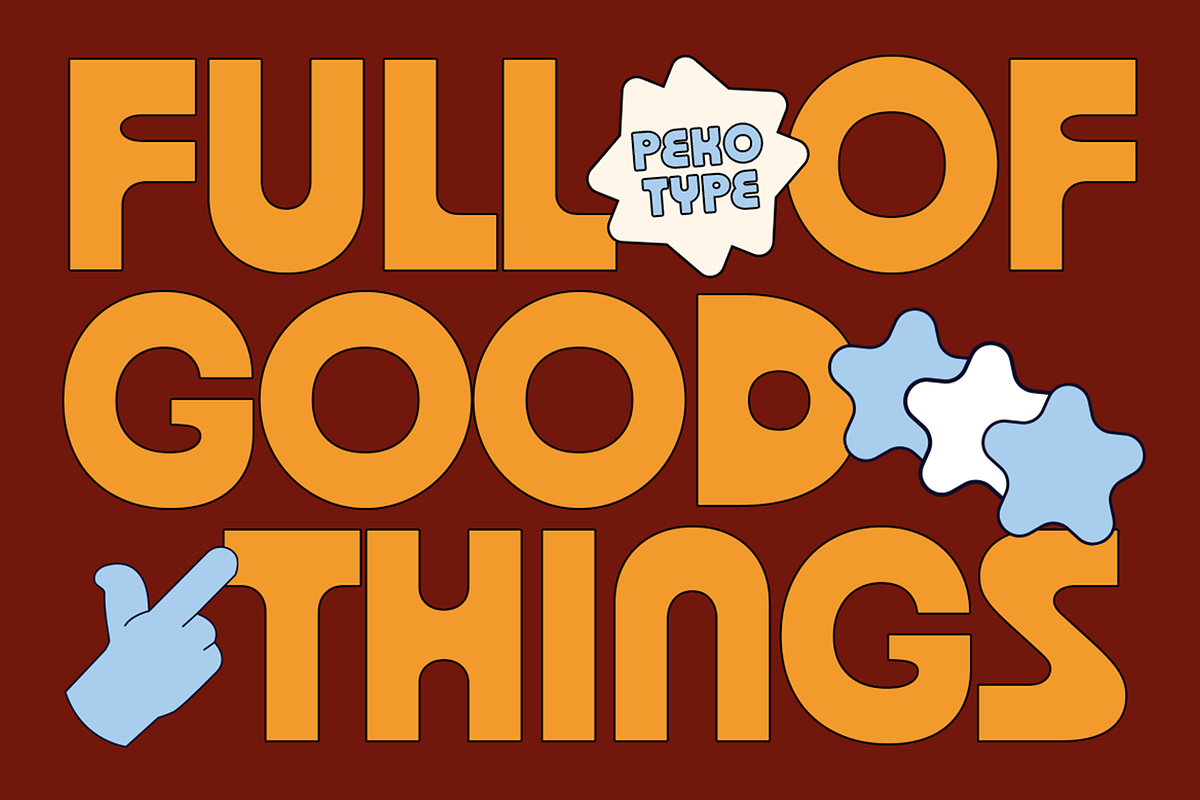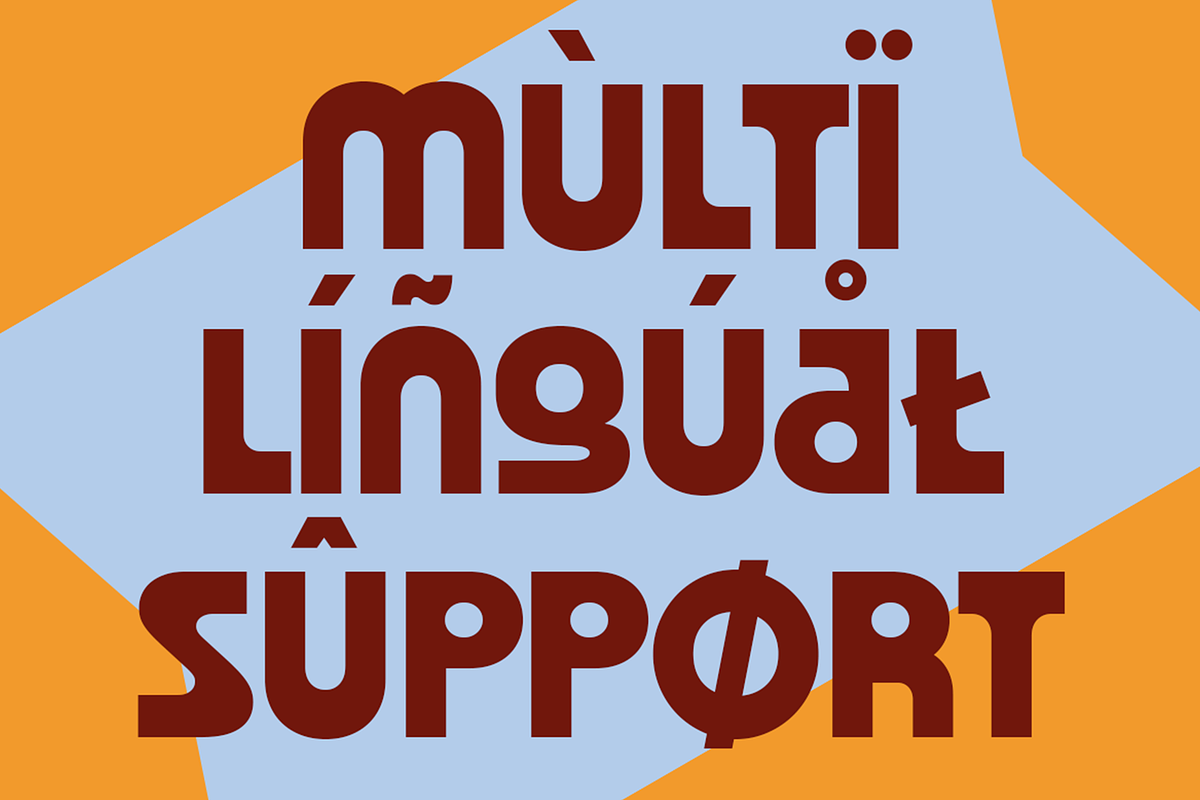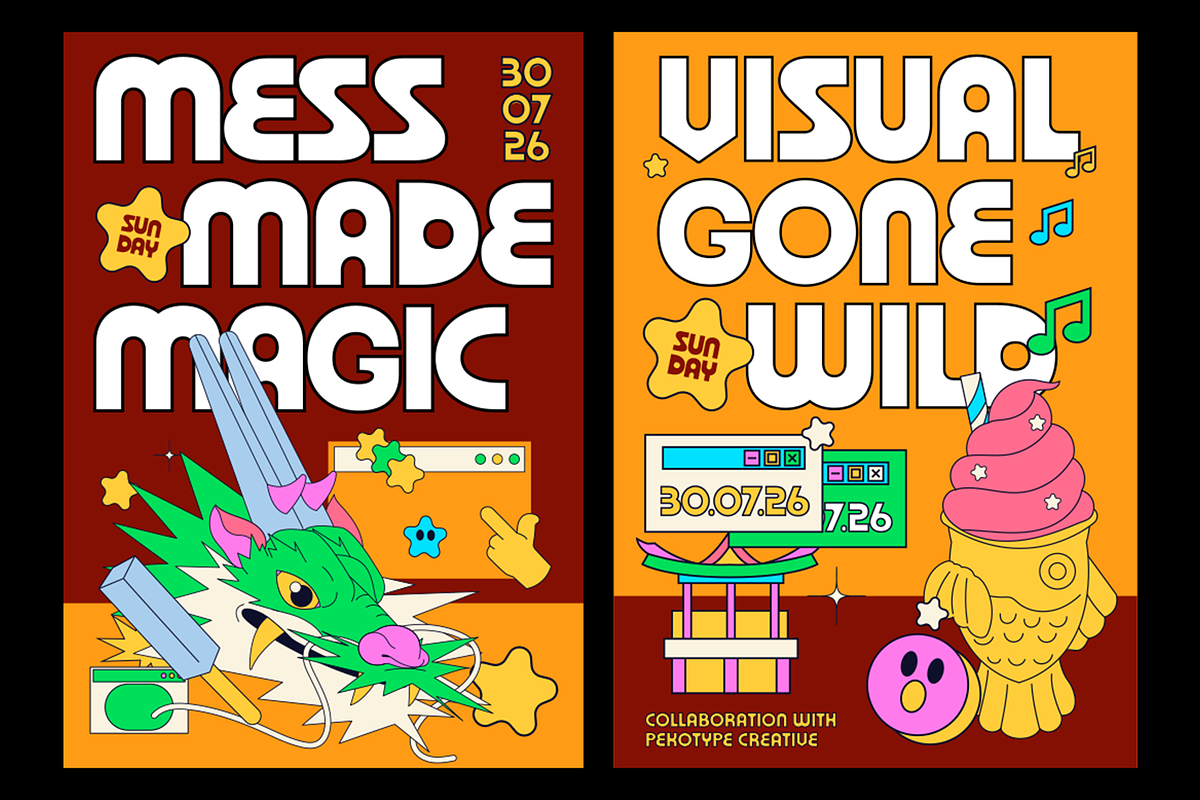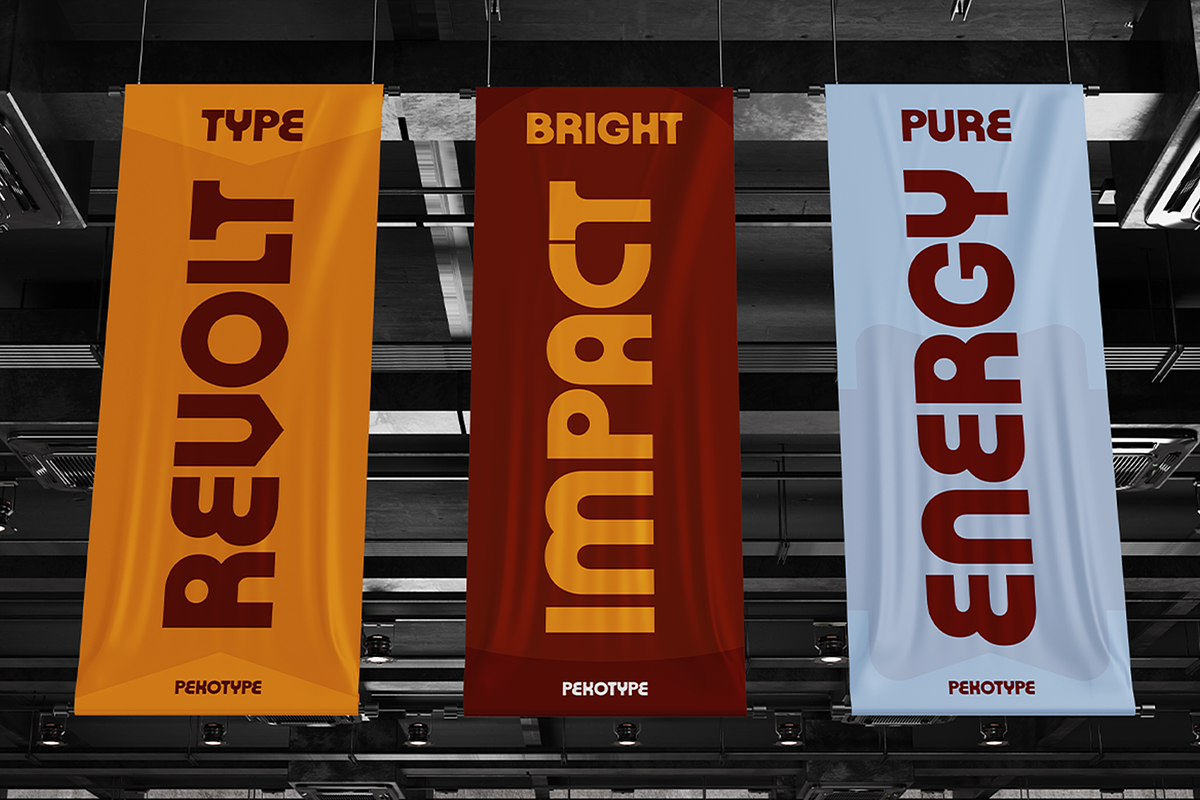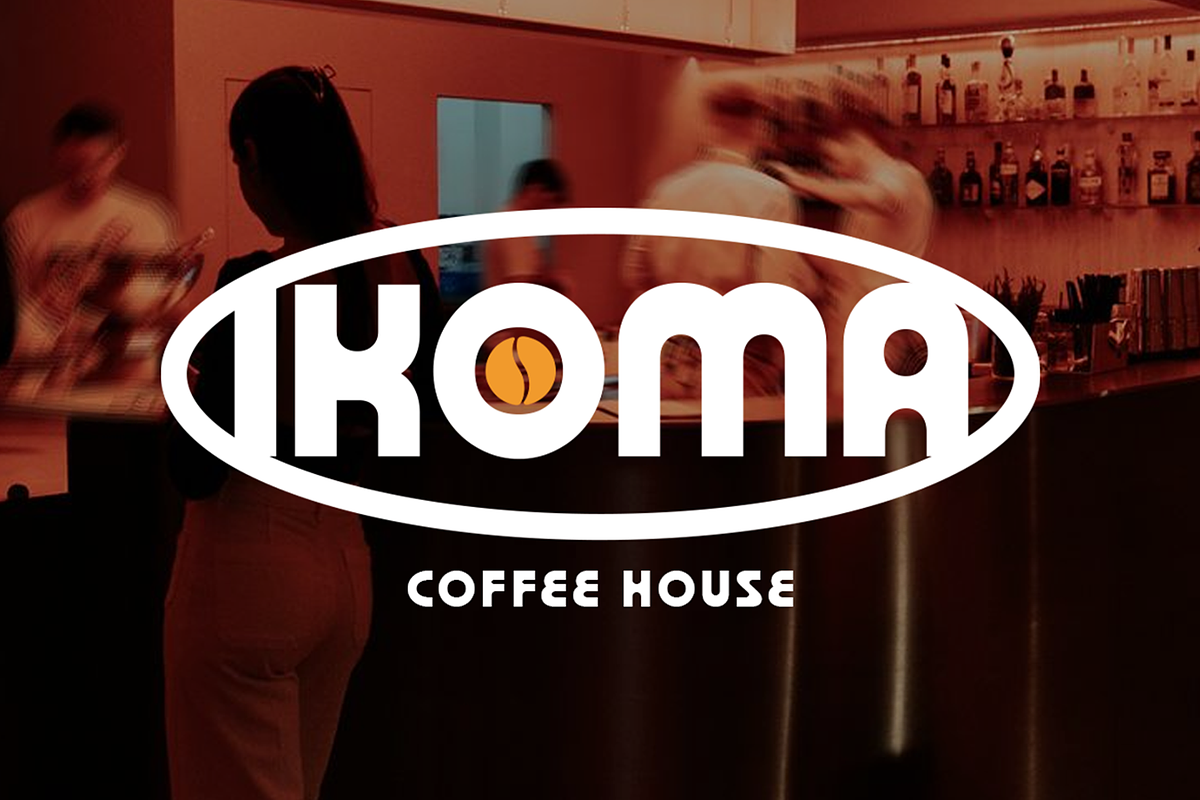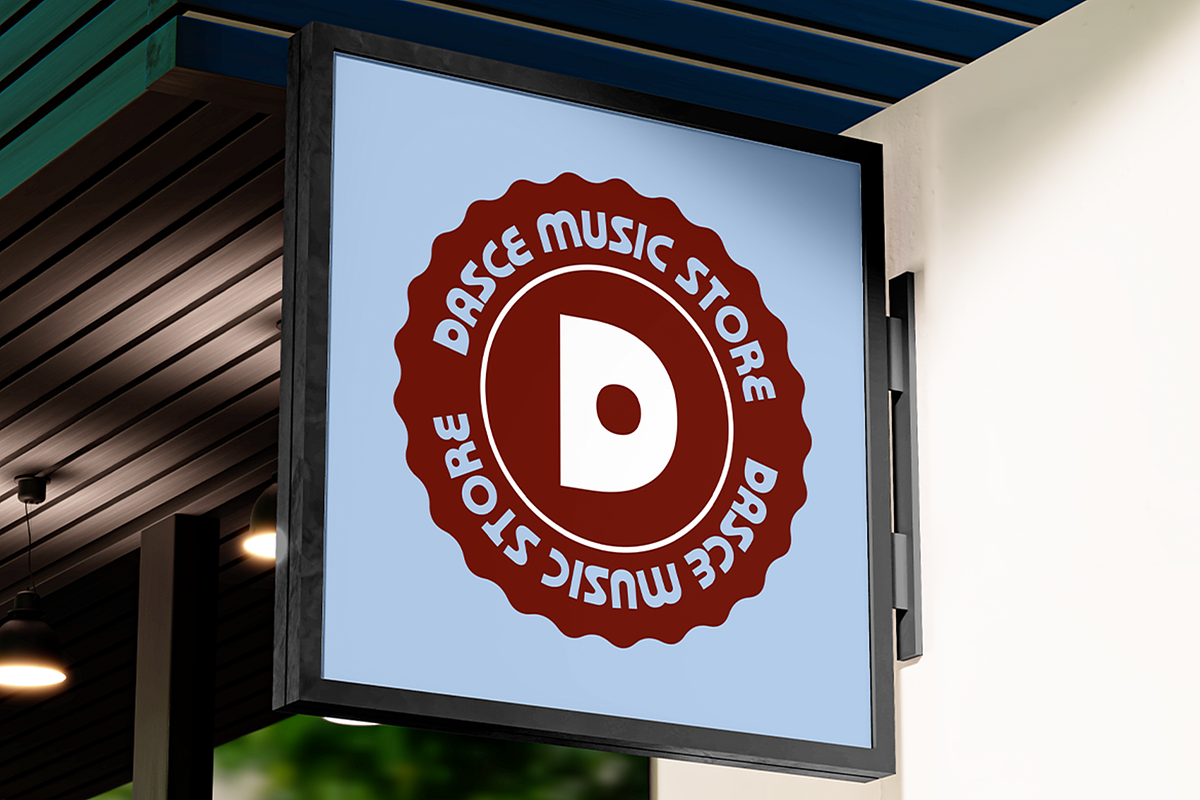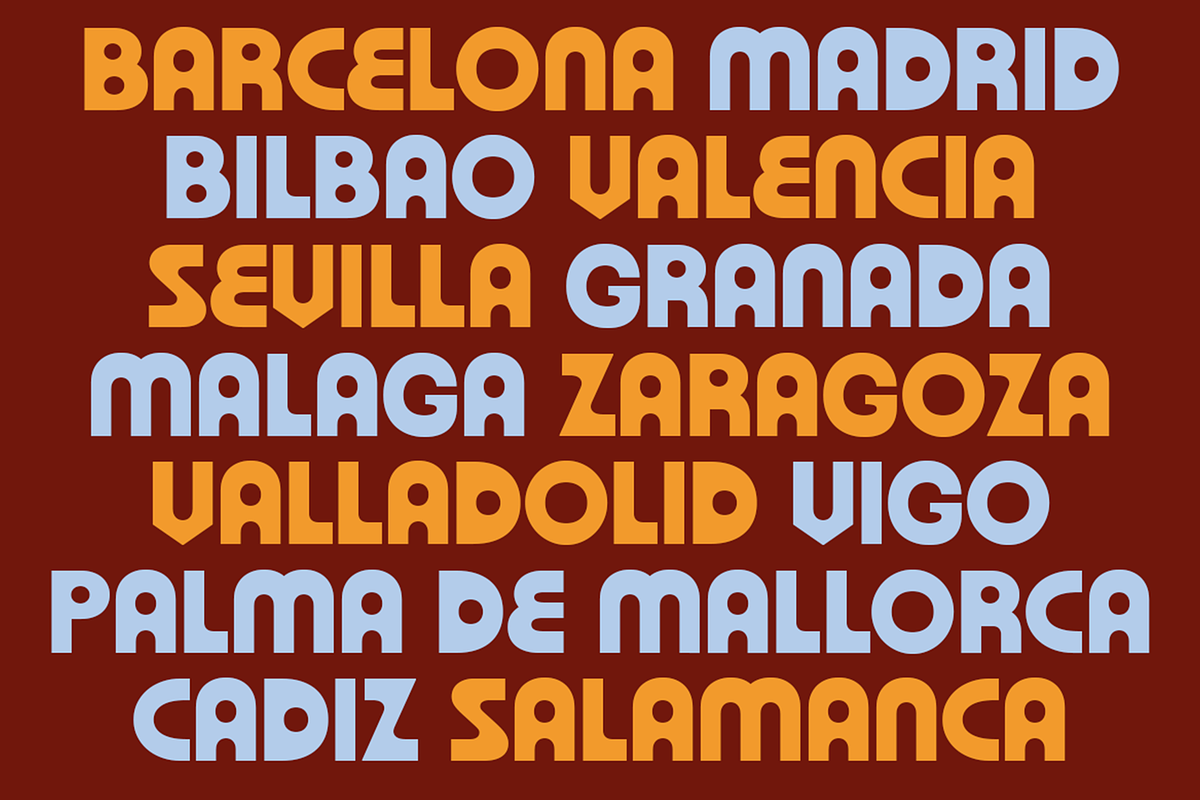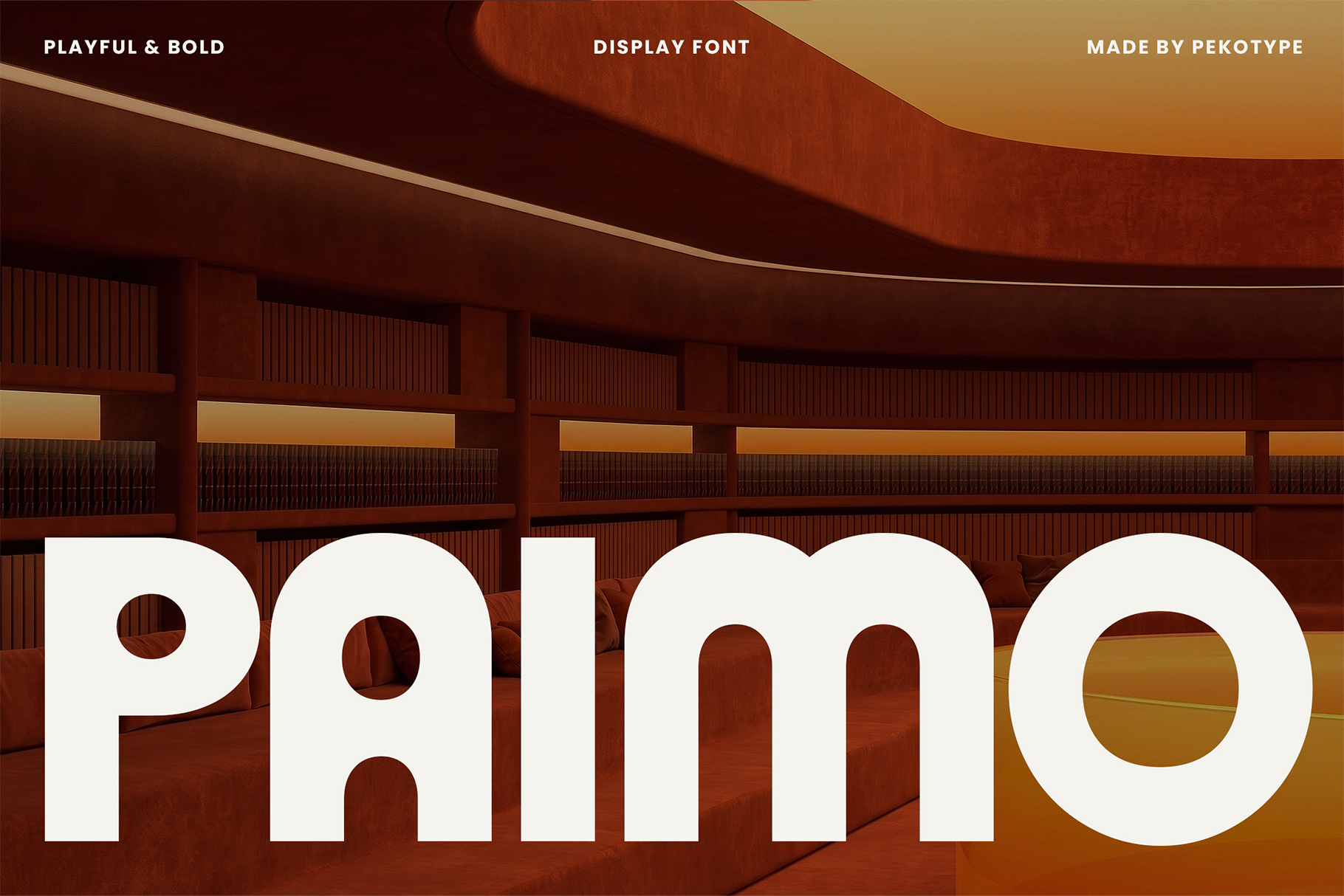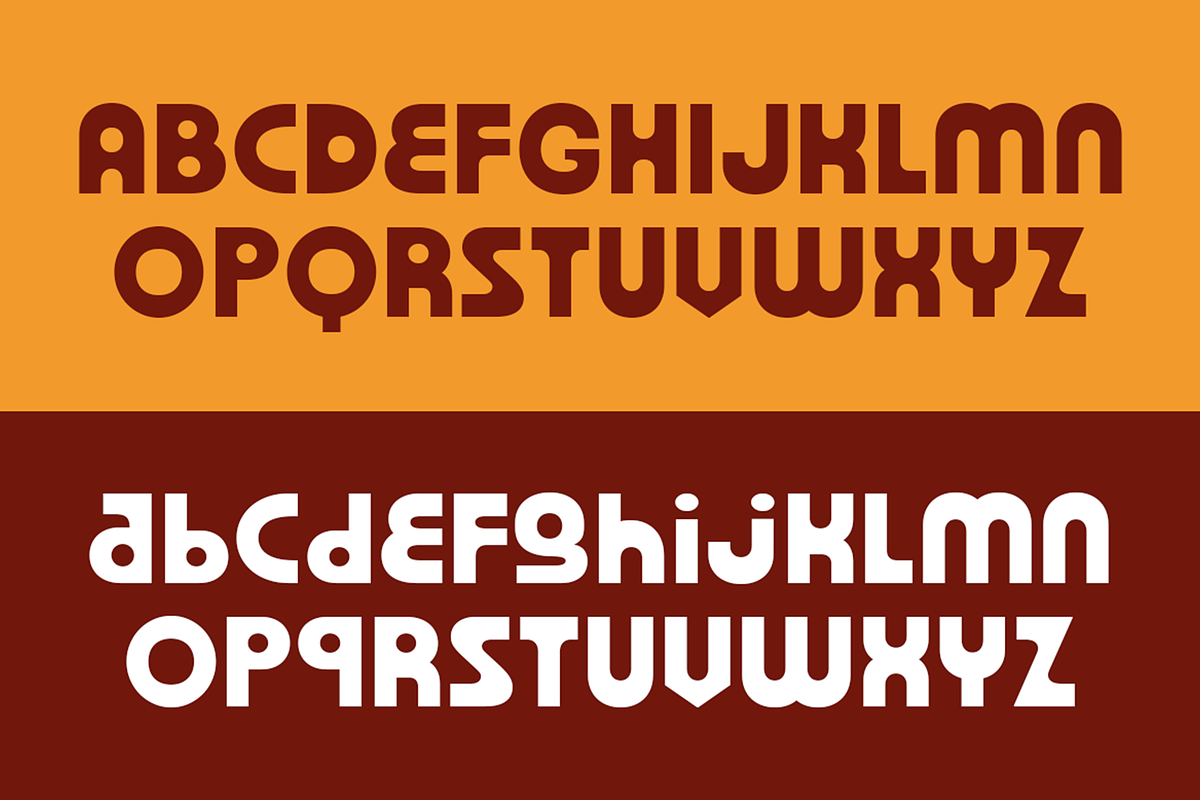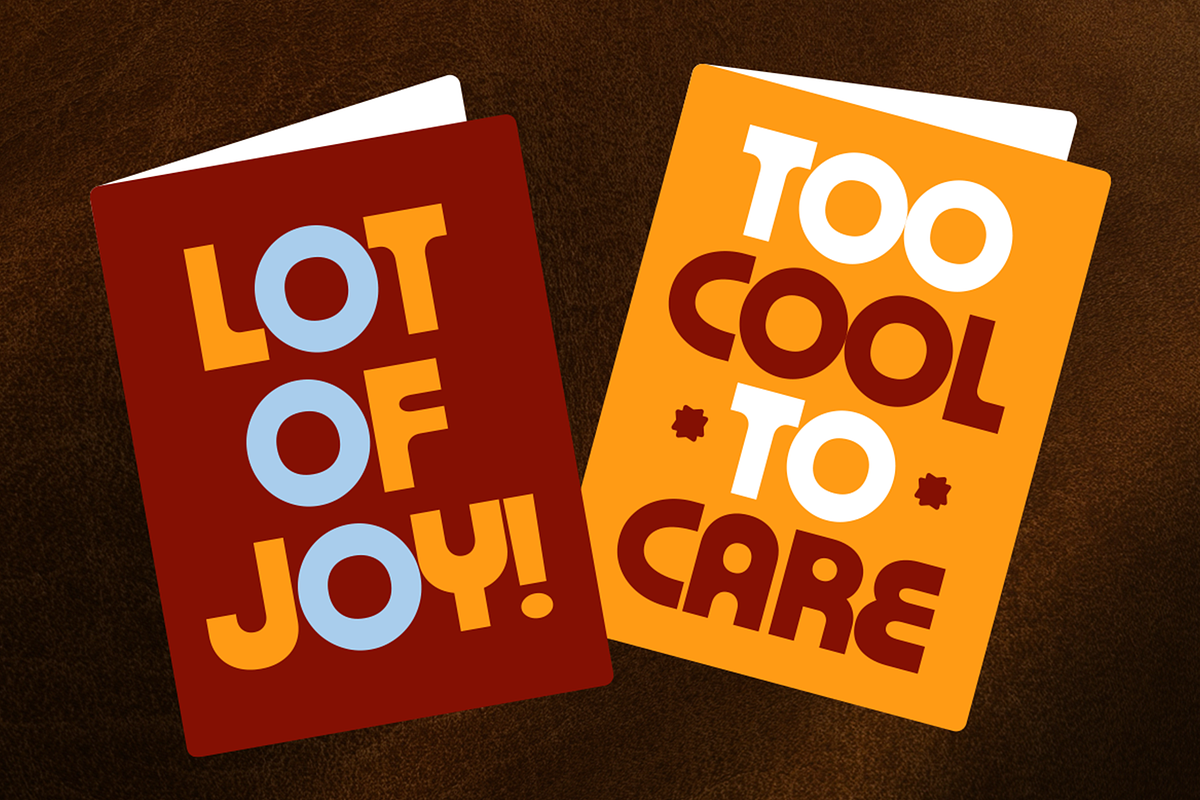
Paimo - Playful Bold Display Font
PAIMO is a bold sans serif display font with rounded shapes and a playful personality. It brings a strong visual impact while keeping a friendly and approachable feel, making your headlines stand out without looking too serious.
Perfect for logos, branding, packaging, posters, social media, event graphics, food brands, signage, merchandise, editorial layouts, and creative marketing projects. PAIMO works great whenever you need bold typography with a fun and energetic style.